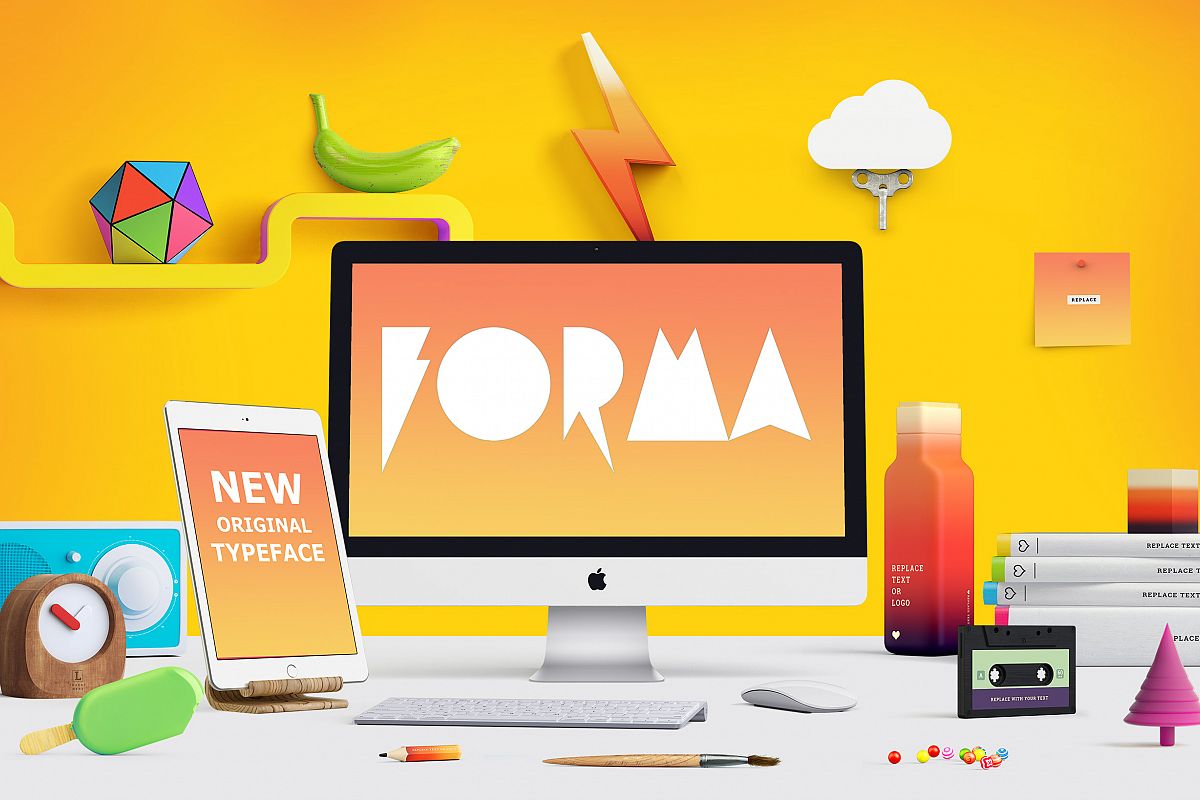
Forma
Forma-Stripes45
Forma-Stroked
Forma-BlackBold
Forma-Rough
I created my display font Forma to made your graphic works more stylish.It's like silhouette or shadow that highlight your uniqueness from other.Make your design fascinating, don't be shy!Of course it has multi language support